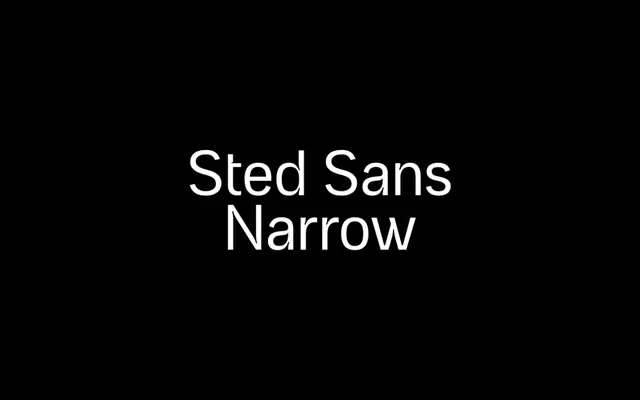
af Sted Sans Narrow
A narrow grotesque inspired by 20th-century Danish road signage traditions, offered in nine weights with matching italics and a variable font.
Part of a.Foundry's Sted Sans trilogy alongside Standard and Expanded widths, this narrow cut draws on the signage typography produced by Danish architects and graphic designers throughout the 20th century. Nine weights run from Thin to Black, each with a corresponding italic, covering 216 languages across an extensive Latin Extended character set. Available as a variable font alongside static OTF, TTF, WOFF and WOFF2 formats.
A narrow grotesque sans-serif drawing on the tradition of Danish road signage typography from the 20th century, with clean, neutral letterforms typical of Northern European sign and wayfinding typefaces.